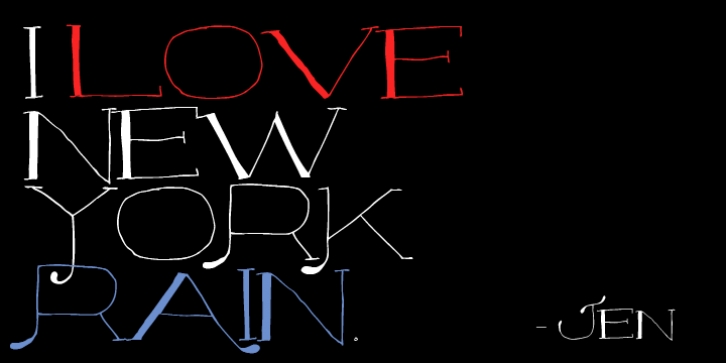
Majordomo font is a font that was based on a vintage unnamed alphabet I found in an old font book. I traced it and added serifs and weight. Majordomo is a person who speaks, makes arrangements, or takes charge for another. Typically, the term refers to the highest (major) person of a household (domo) staff, one who acts on behalf of the (often absent) owner of a typically large residence.